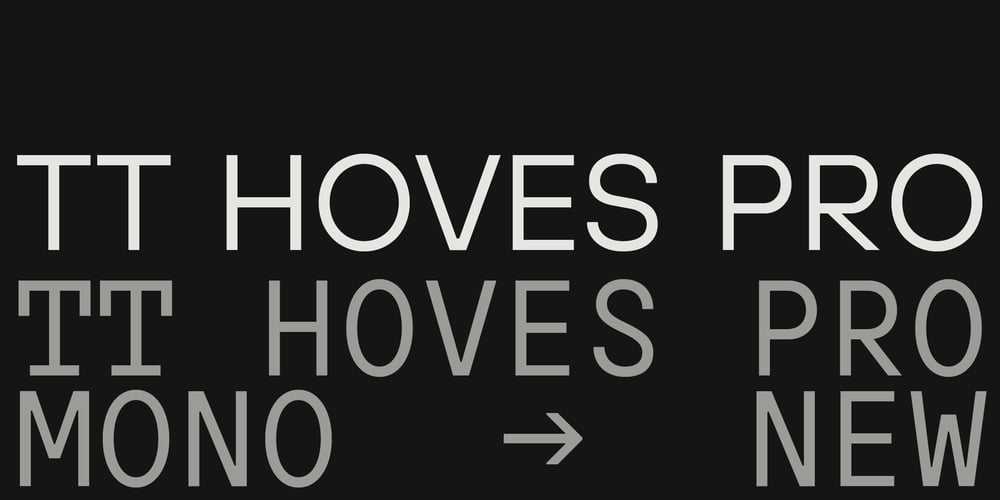
TT Hoves Pro
TT Hoves Pro font
TT Hoves Pro Font Family was designed by Antonina Zhulkova, Marina Khodak, TypeType Team, Toma Streltsova and published by TypeType. TT Hoves Pro contains 98 styles and family package options. Introducing an enhanced version of TT Hoves Pro! We have amplified the font’s functionality by adding a Mono subfamily. The 3.100 version also includes new font styles and supported languages. TT Hoves Pro is one of the studio’s bestsellers included in our core set of versatile fonts. It is a Scandinavian sans serif with a neutral but recognizable character. One of this font’s key characteristics is a visual lack of contrast. All terminals are positioned at one level, and triangular glyphs feature wide horizontal strokes. The name TT Hoves is formed by combining the initial syllables of the words “horizontals” and “verticals.” It emphasizes the dominance of horizontal and vertical strokes in the font’s glyph design. When working on this typeface, we aimed to create a convenient and functional designer tool with its own style and aesthetics.Thanks to its large character set, numerous font styles, and extensive language support, TT Hoves Pro offers solutions to tackle a variety of different tasks. The typeface includes a variable font with three axes of variation: width, weight, and slant. This provides designers with even more opportunities to unleash their creativity. The Mono subfamily in the new version was approached with a creative touch. Instead of only creating a monospaced font preserving the graphics of TT Hoves Pro, we modified the visual style of some glyphs. This allowed us to add a specific charm to TT Hoves Pro Mono, making it look more expressive. So, some characters in the Cyrillic set acquired serif, which made the text density more uniform. Among interesting details is a set with a three-legged lowercase “т” and a serif in “б.” The form of “Сс” in the Cyrillic and Latin character sets is different, helping to avoid confusion when the font is used in programming scripts. TT Hoves Pro Mono includes 15 font styles: 7 roman, 7 italic, and one variable font with 3 variation axes. We also added a Compact subfamily with 20 new font styles. In total, the typeface includes 5 subfamilies: Compact, Normal, Condensed, Expanded, and Mono, plus two Outline font styles (roman and italic).TT Hoves Pro easily matches any contemporary project. It’s perfect for web and app design and looks flawless in branding, packaging design, and printing. The font is highly readable and does an excellent job in running text as well as large point sizes. The updated TT Hoves Pro includes: 98 font styles, including 2 variable fonts; 1573 glyphs in each font of the Compact, Normal, Condensed, and Expanded subfamilies, 1229 glyphs in each font of the Mono subfamily, and 672 glyphs in the Outline versions; 41 OpenType features, counting in ligatures and stylistic alternates; 200+ languages support.